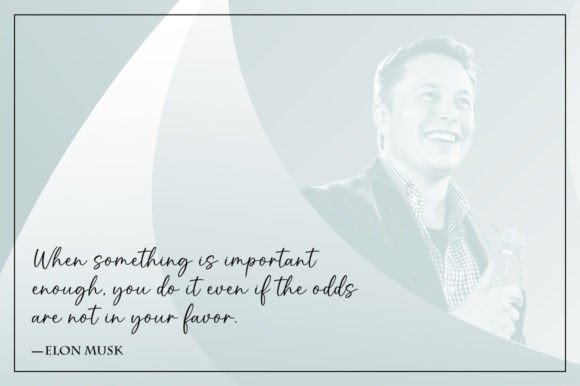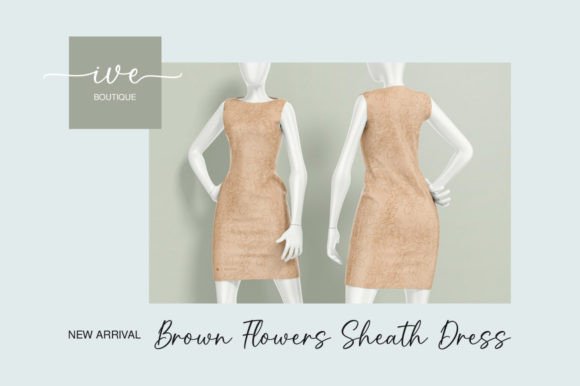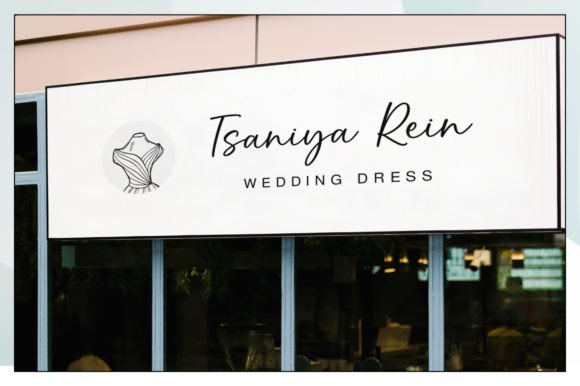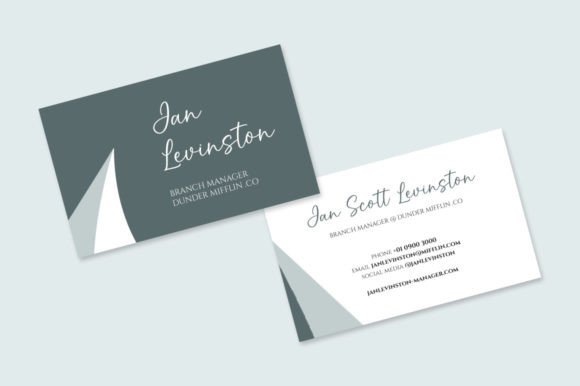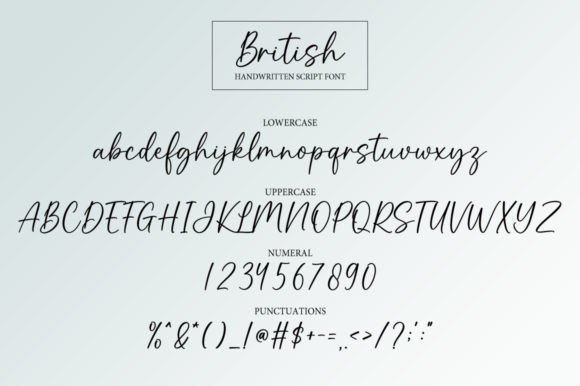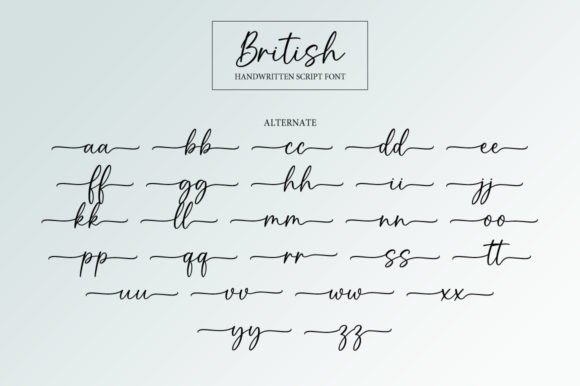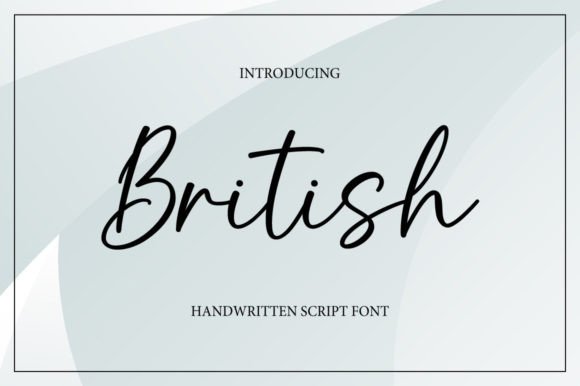
Discover the Charm of British Font: A Timeless Handwritten Delight
Are you on the hunt for a font that exudes elegance, sophistication, and a touch of British charm? Look no further than the British Font, a lovely and timeless handwritten font that’s perfect for creating eye-catching logos, branding, and quotes. In this article, we’ll dive into the world of British Font, exploring its features, benefits, and uses, and why it’s a must-have for designers and crafters alike.
The Beauty of British Font
British Font is a stunning handwritten font that’s been crafted to capture the essence of traditional British typography. Its elegant, cursive strokes and flowing lines evoke a sense of nostalgia and refinement, making it perfect for projects that require a touch of sophistication. Whether you’re designing a logo, creating a brand identity, or crafting a quote, British Font is the ideal choice.
What Sets British Font Apart?
So, what makes British Font stand out from the crowd? Here are just a few features that make it a cut above the rest:
- PUA Encoding: British Font is PUA (Private Use Area) encoded, which means you can access all of the glyphs and swashes with ease. This makes it incredibly versatile and easy to use.
- Handwritten Charm: British Font has a beautifully handwritten feel that’s perfect for creating personal, bespoke designs.
- Elegant and Refined: With its classic, cursive strokes, British Font exudes elegance and sophistication, making it perfect for high-end branding and design projects.
Uses for British Font
So, what can you use British Font for? The possibilities are endless! Here are just a few ideas to get you started:
- Logo Design: Create a stunning logo that captures the essence of your brand with British Font.
- Branding and Identity: Use British Font to create a cohesive brand identity that exudes elegance and sophistication.
- Quotes and Typography: Add a touch of British charm to your quotes and typography with this beautiful handwritten font.
- Stationery and Invitations: Use British Font to create bespoke stationery and invitations that are sure to impress.
Why Designers and Crafters Love British Font
So, why do designers and crafters love British Font? Here are just a few reasons:
- Easy to Use: With its PUA encoding, British Font is incredibly easy to use, even for those with limited design experience.
- Versatile: British Font is perfect for a wide range of design projects, from logos and branding to quotes and typography.
- Timeless: British Font has a timeless quality that ensures your designs will never go out of style.
In conclusion, British Font is a truly special font that’s perfect for designers and crafters looking to add a touch of elegance and sophistication to their designs. With its beautiful handwritten strokes, PUA encoding, and versatility, it’s the ideal choice for a wide range of design projects. Whether you’re creating a logo, branding, or quotes, British Font is sure to impress. So why wait? Discover the charm of British Font today and take your designs to the next level!